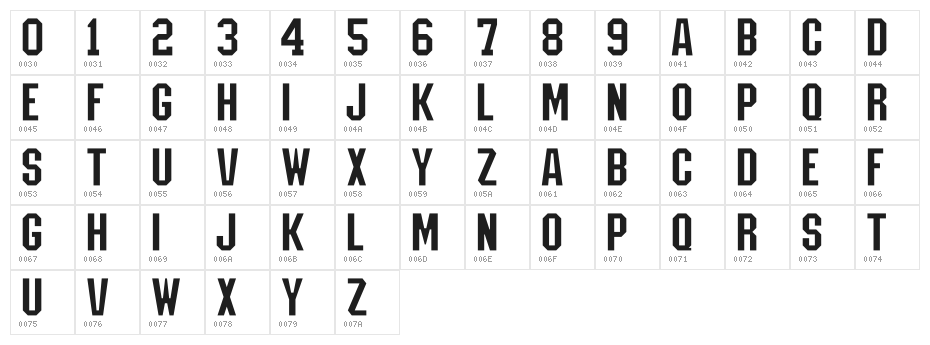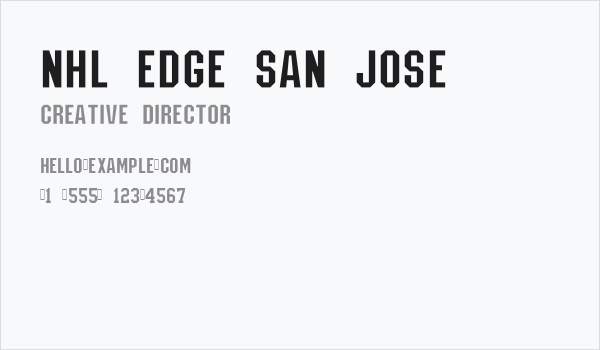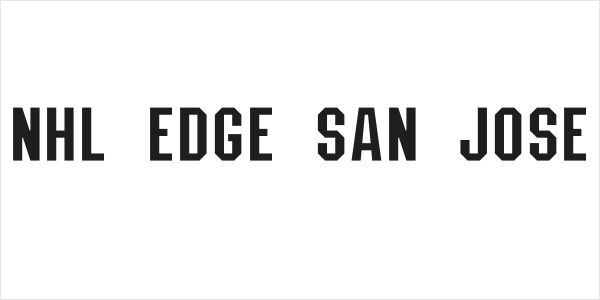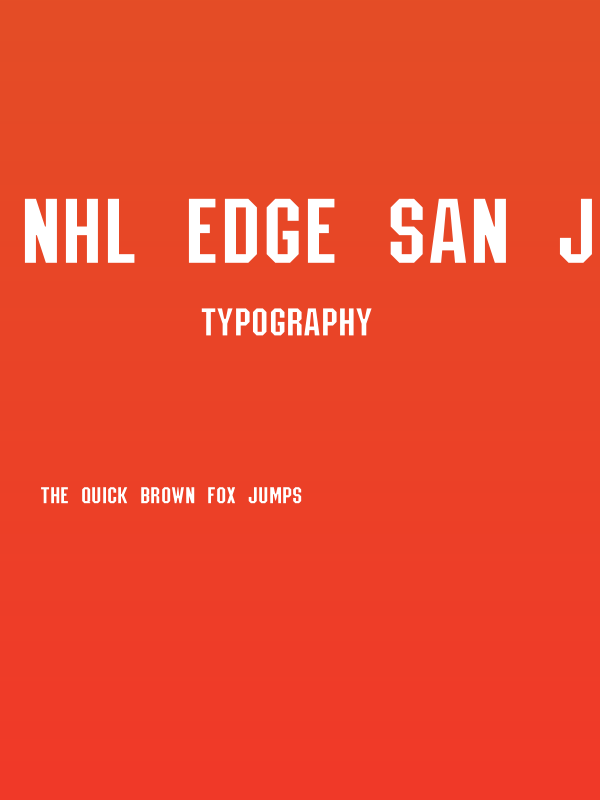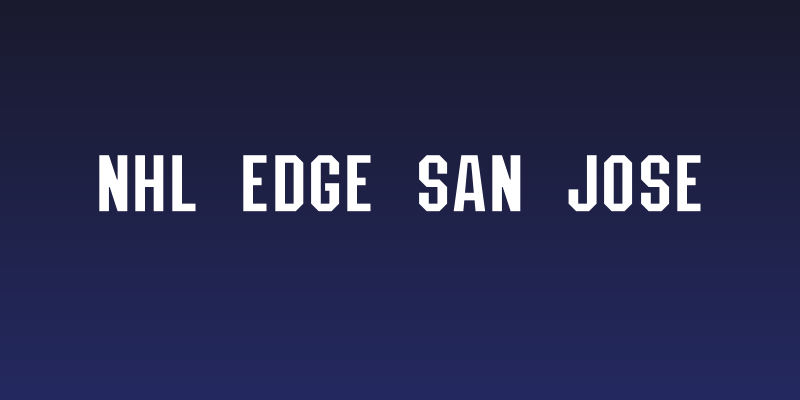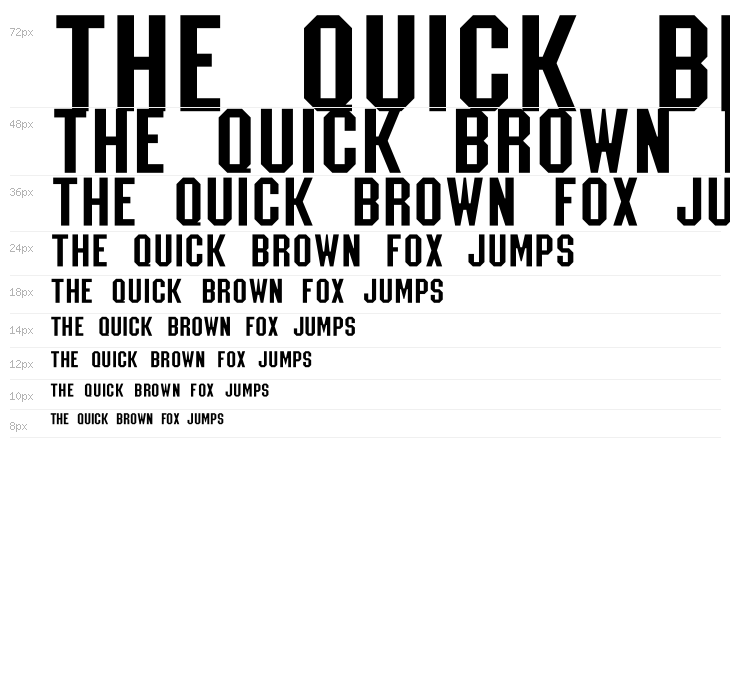
NHL Edge San Jose Font
NHL Edge San Jose Description
This font features bold, geometric letterforms with a strong, athletic aesthetic. The uppercase characters are blocky and angular, reminiscent of sports jerseys and team branding. The numbers follow the same style, ensuring consistency across different uses. The design is clean and impactful, making it ideal for situations where visibility and readability are crucial. The absence of lowercase letters and special characters suggests a focus on straightforward, bold messaging.
| Use Case | Logos, Headlines |
| Proposed Projects | Perfect for sports team logos, athletic apparel, event posters, and any project requiring a strong, bold typeface. |